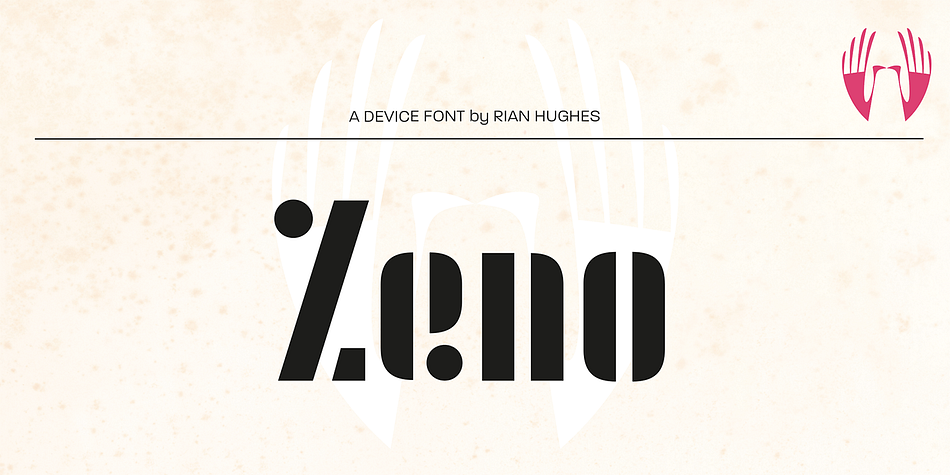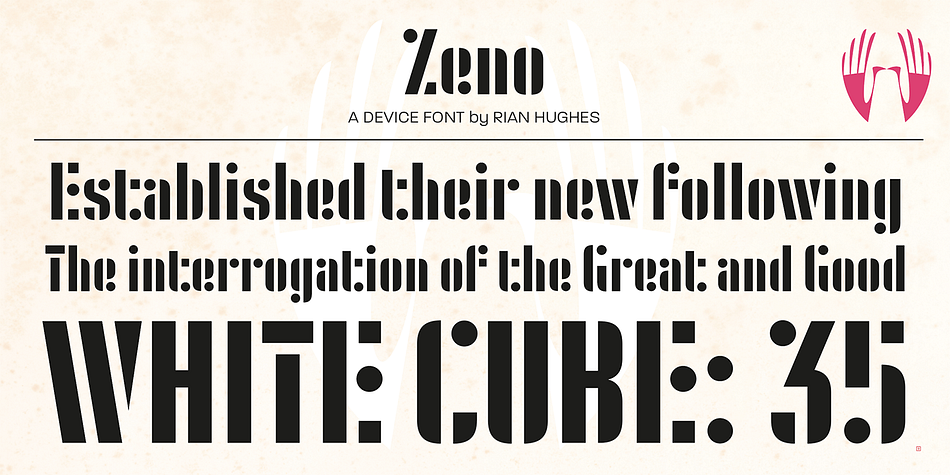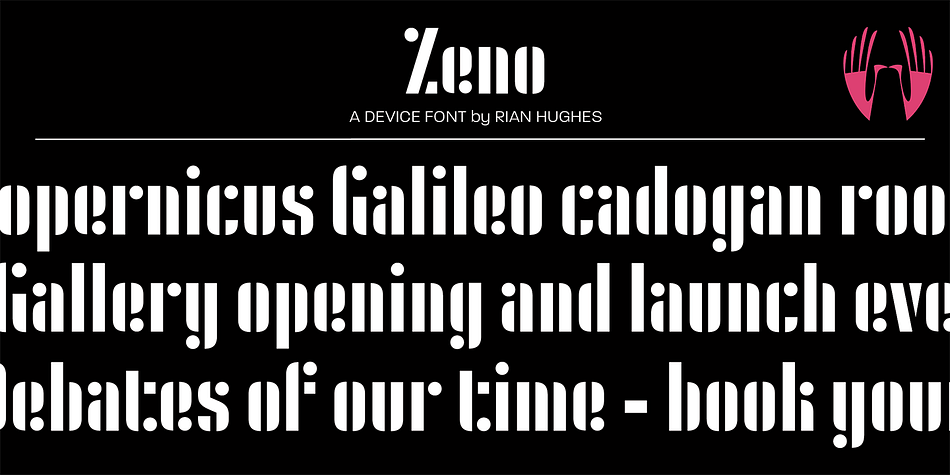
Designed by Rian Hughes, Zeno is a display sans and stencil font published by Device.
Bold, graphic and with a strong vertical emphasis. Built from simple geometric shapes, Zeno is similar to some of Joseph Albers’ Bauhaus experiments, though with attention paid to normalising the lettershapes to improve readability.
Foundry | Device |
Styles | Display Sans, Stencil |
Designer | Rian Hughes |